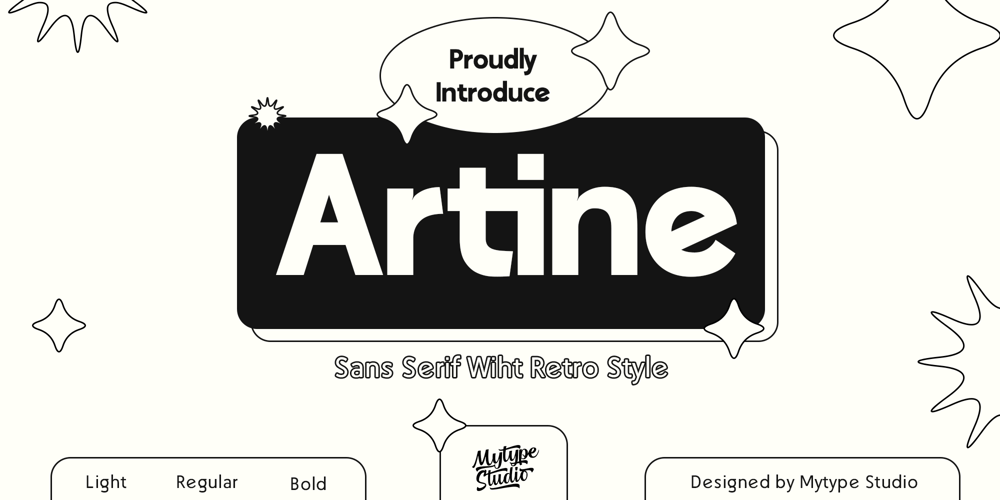
Artine
Artine font
Artine Font Family was designed by Mhd Husaini and published by SimpleType Studios. Artine contains 3 styles and family package options. Unleash your creativity with Artine, the latest addition to your design toolkit. Inspired by classic retro aesthetics, Artine offers a versatile sans serif typeface available in three distinct weights: Light, Regular, and Bold. Whether you’re working on a vintage-themed project, modern branding, or eye-catching headlines, Artine delivers the perfect blend of nostalgia and contemporary style.Artine stands out with its timeless appeal and adaptability. It’s not just a font; it’s a statement piece that brings a touch of elegance and fun to any project. Designed by Mytype Studio, this typeface is crafted with attention to detail, ensuring high quality and usability.ransform your designs with the elegance and versatility of Artine. Whether you’re a seasoned designer or just starting, Artine is your go-to font for adding a retro flair to your work. Download now and start creating stunning designs with ease.